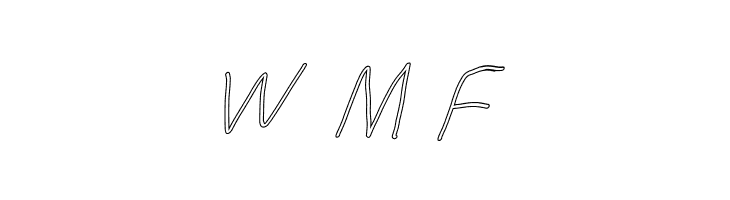
SuplexDriver Black Font
Font by Cannot Into Space Fonts
A bold, playful handwritten font with thick, rounded strokes.
SuplexDriver Regular Font
Font by Cannot Into Space Fonts
A playful, handwritten font with a casual and organic style.
SuplexDriver Bold Font
Font by Cannot Into Space Fonts
A bold, playful handwritten font with rounded, irregular characters.
SuplexDriver Black OBlique Font
Font by Cannot Into Space Fonts
A bold, oblique handwritten font with a dynamic and playful style.
SuplexDriver Hairline Oblique Font
Font by Cannot Into Space Fonts
A delicate, hand-drawn oblique font with a casual yet sophisticated style.
SuplexDriver Regular Oblique Font
Font by Cannot Into Space Fonts
A casual, handwritten font with an oblique slant and consistent stroke width.
SuplexDriver Hairline Font
Font by Cannot Into Space Fonts
A playful, handwritten font with thin, hairline strokes and a casual, informal style.
SuplexDriver Regular Oblique Outline Font
Font by Cannot Into Space Fonts
A playful, outlined font with a hand-drawn, oblique style.
SuplexDriver Bold Oblique Font
Font by Cannot Into Space Fonts
A bold, oblique, and handwritten-style font with a dynamic and energetic appearance.
SuplexDriver Regular Oblique Outline Font
A playful, hand-drawn outlined font with an oblique style.